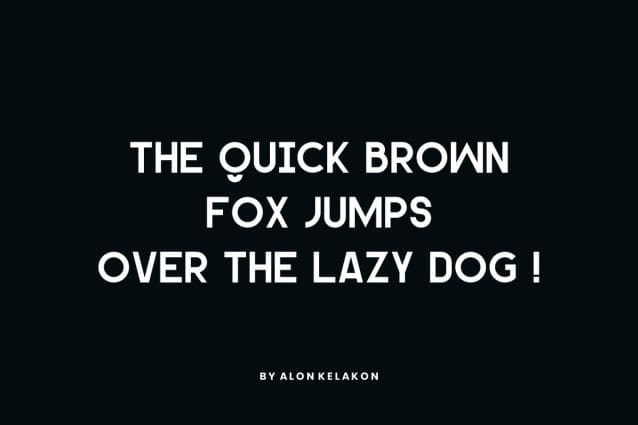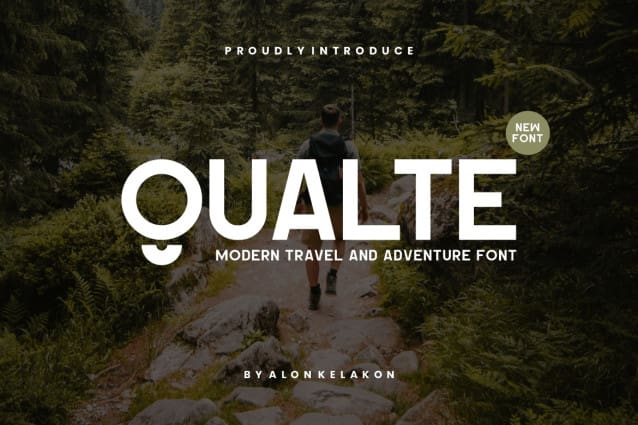
Qualte Font
Qualte Font – Modern travel and adventure Font is one of a kind. Ready to be used for your designs like labeling, movie scene, poster, movie title, concerts, album covers, logos and much more.